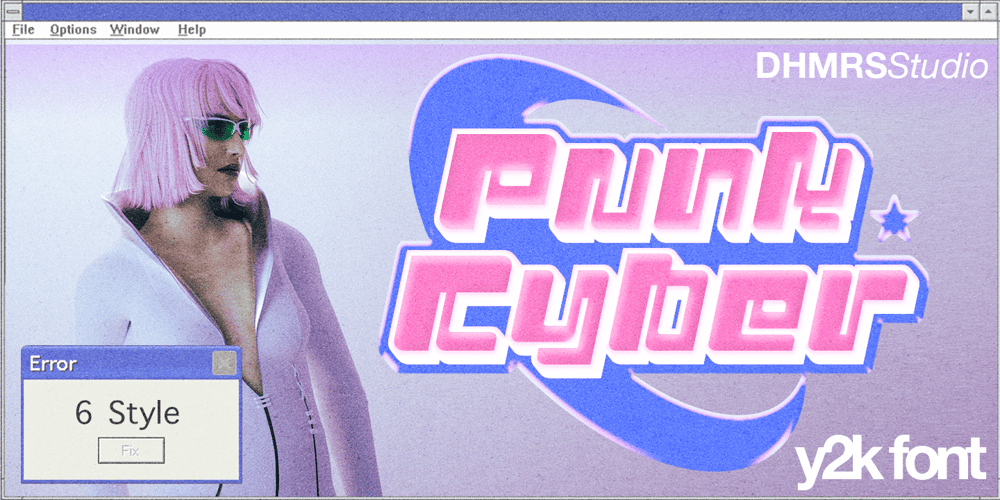
Punk Cyber Font Family was designed by Ahmad Jamaludin and published by Ahmad Jamaludin. Punk Cyber contains 6 styles and family package options. Get ready to dive into the retro vibes of the early 2000s with PUNK CYBER!. This font brings back the bold, colorful, and experimental visuals that defined the y2k era. With 6 captivating styles – Regular, Slant, Outline, Extrude, Outline Slant, and Extrude SlantFeatures: Has 6 Variable: Regular, Slant, Outline, Extrude, Outline Slant, and Extrude Slant Instructions (Access special characters, even in Cricut Design) Unique Letterforms Simple Installations Enjoy Designing!Dharmas Studio